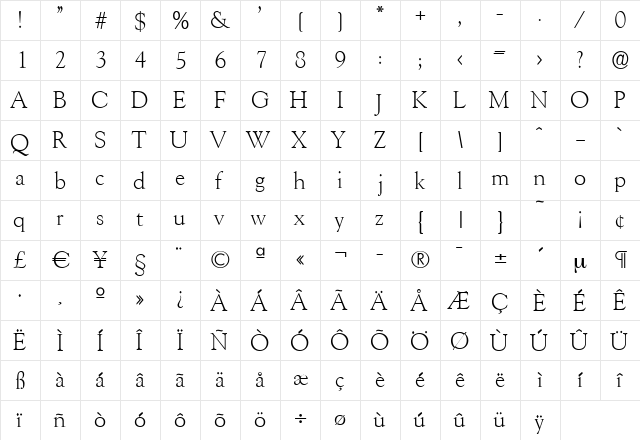
JackBecker-Light Regular
Design Context for JackBecker-Light Typeface
JackBecker-Light offers clean, dependable letterforms without strong stylistic allegiance, making it a practical choice for designers who need flexibility. The delicate stroke weight brings airiness and refinement to layouts.